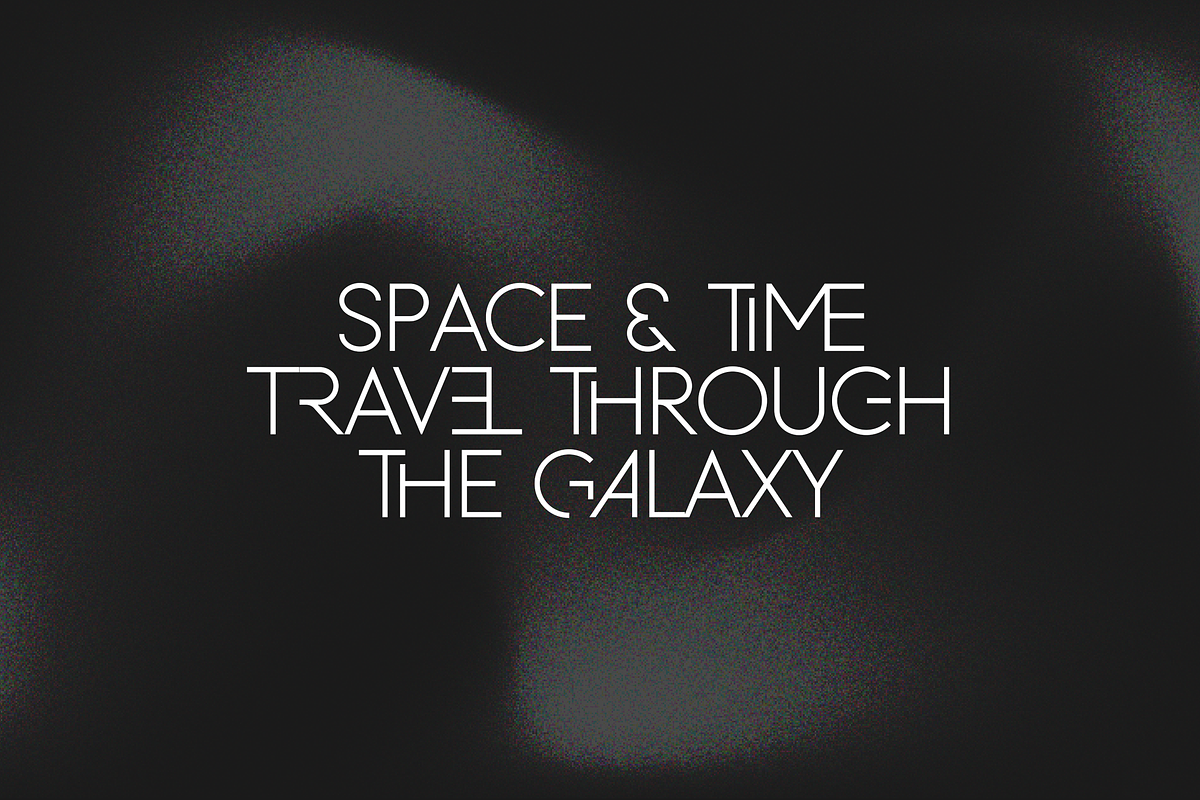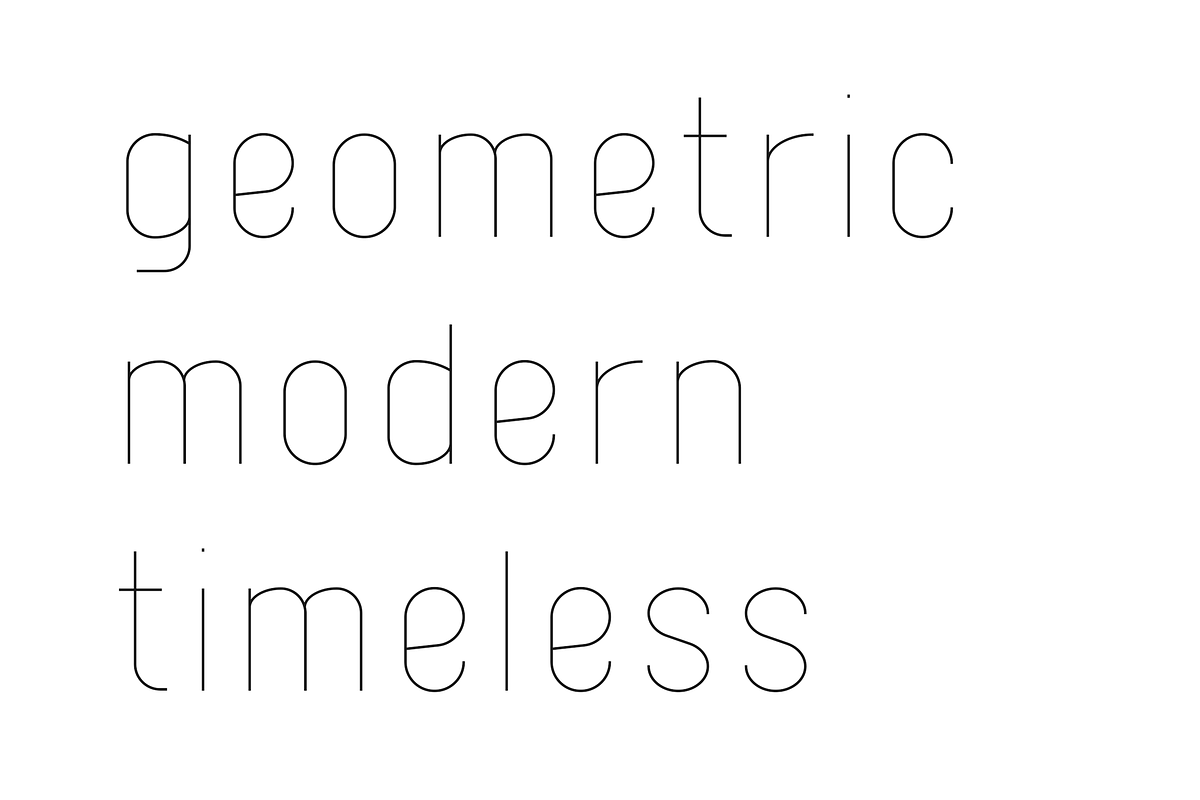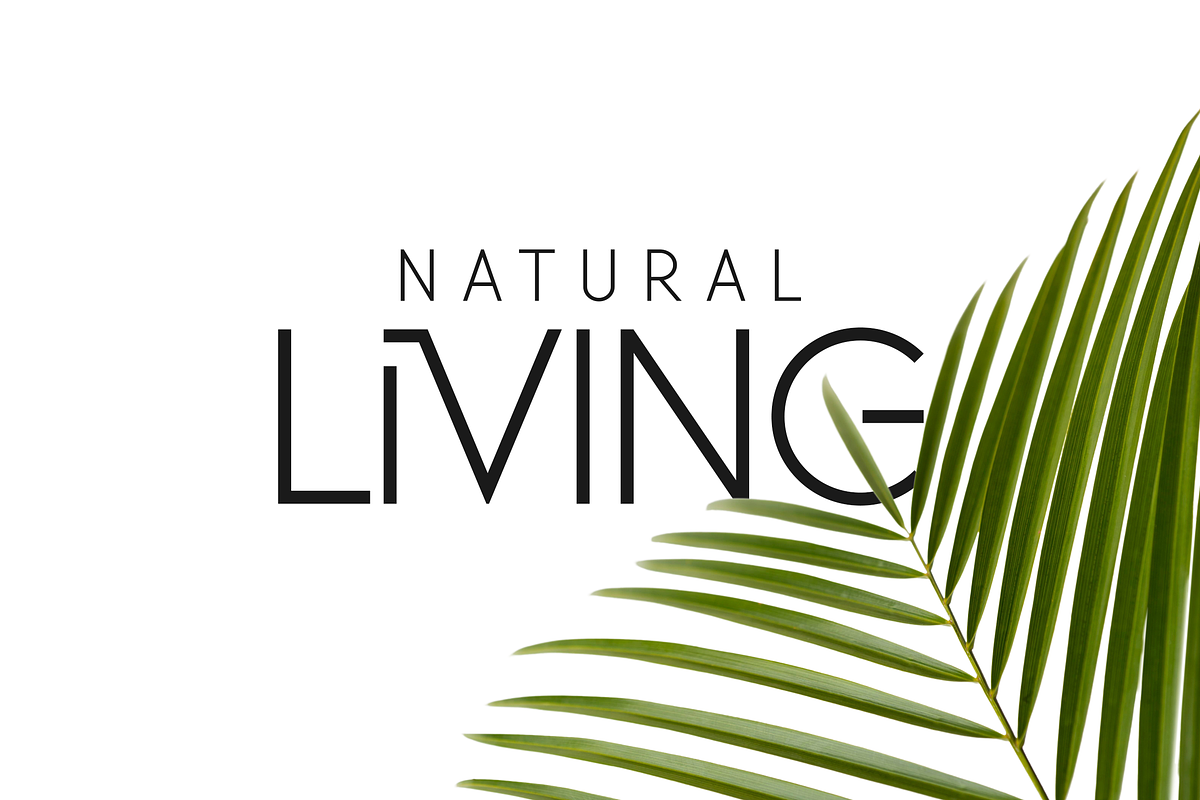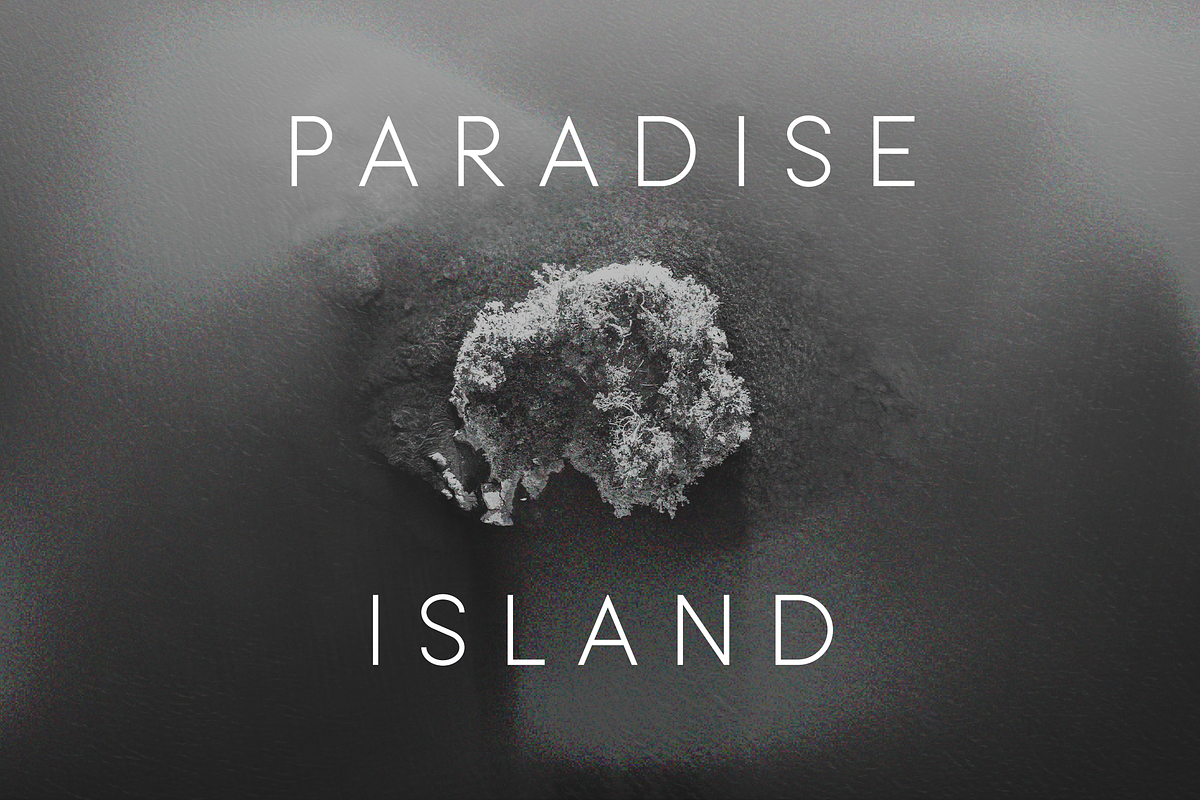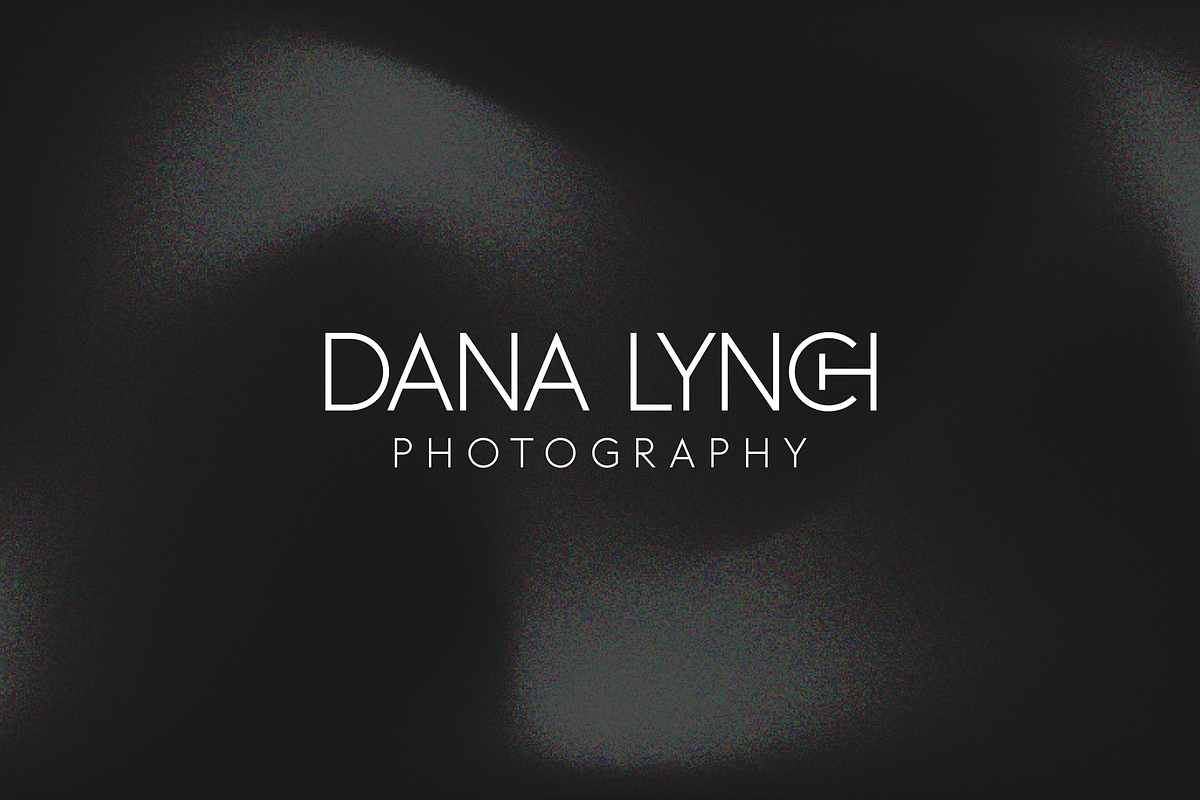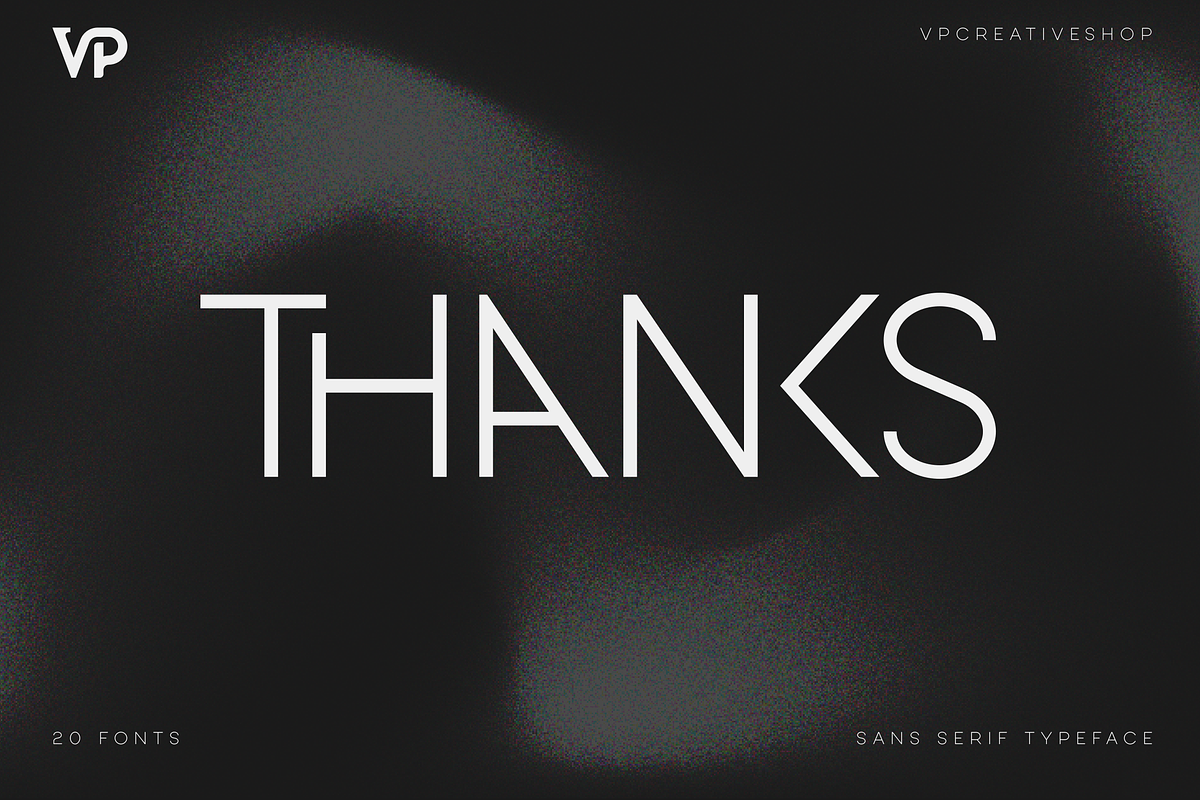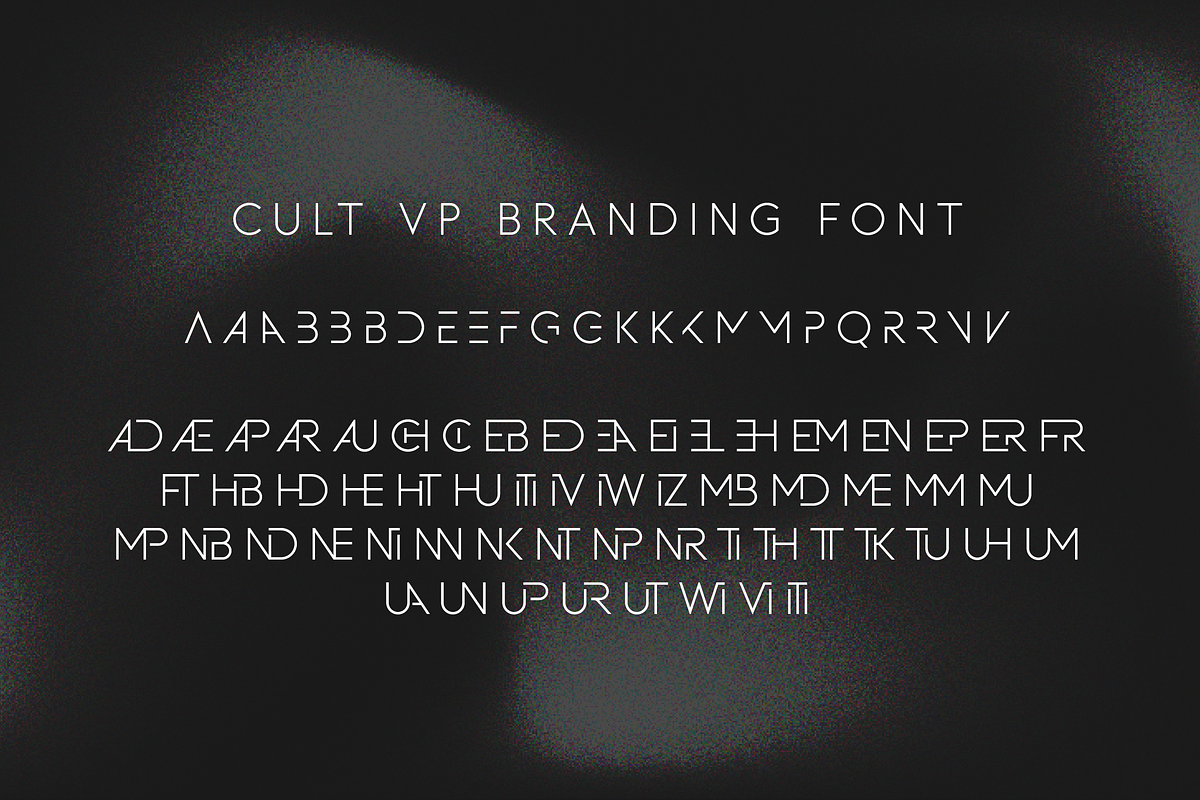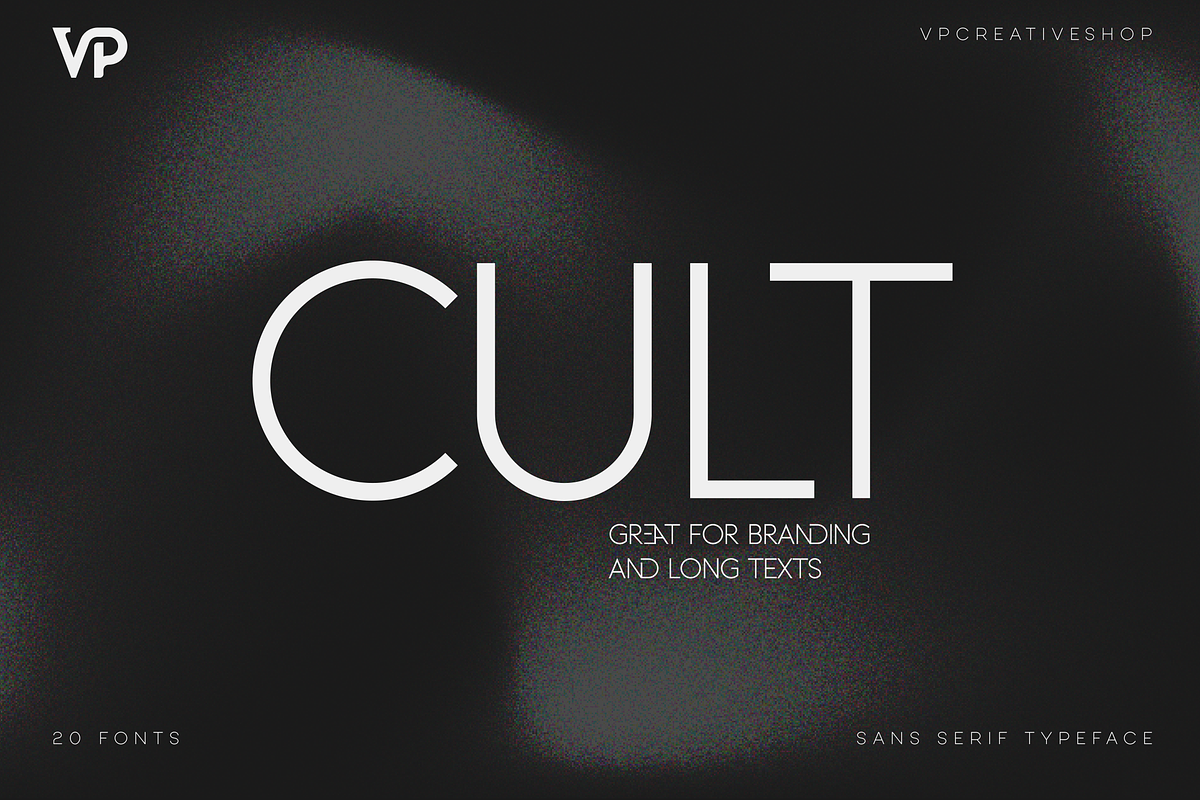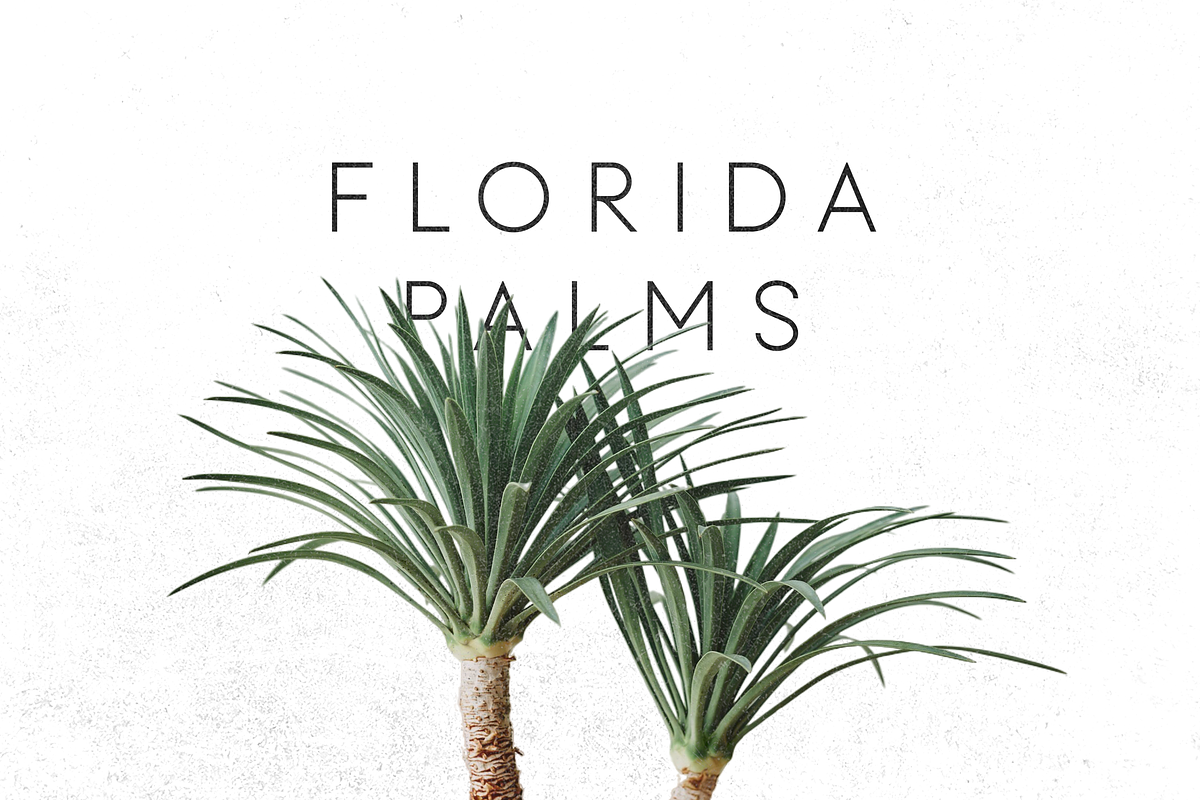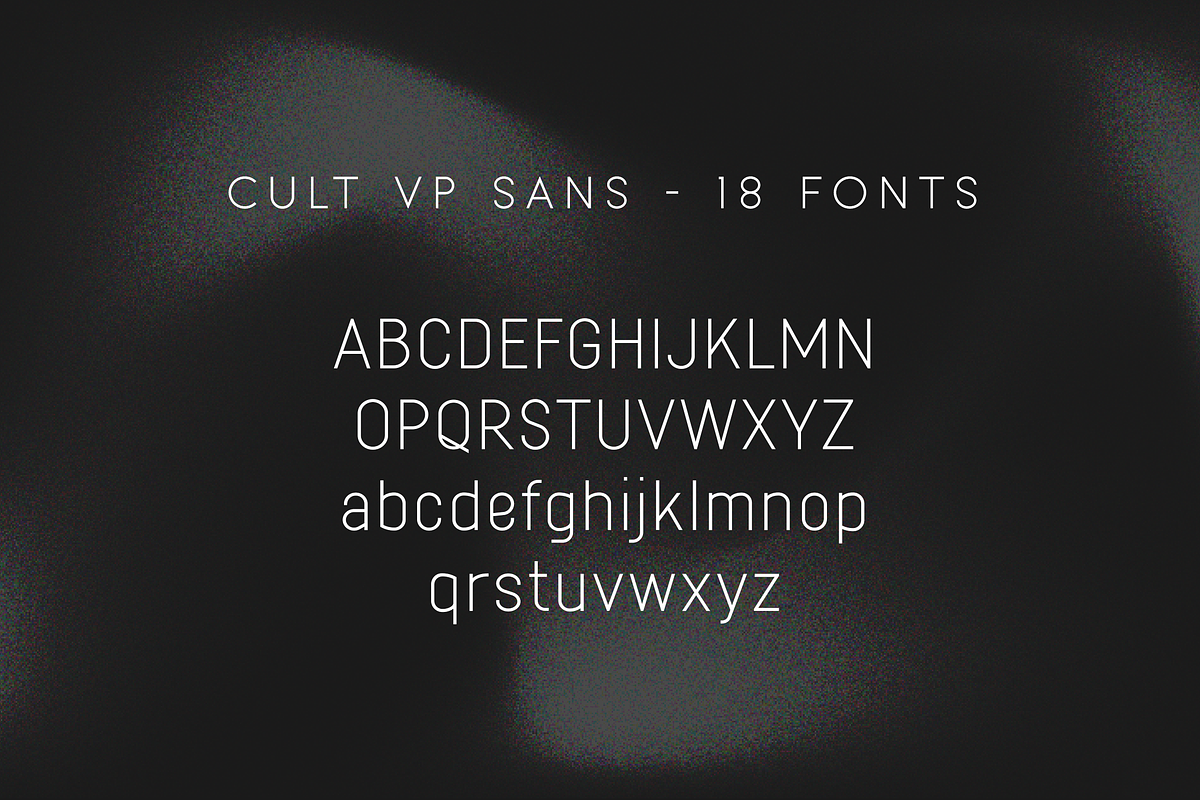
Cult VP Typeface - 20 fonts
Introducing Cult VP typeface - 20 fonts
Unlock the creative potential with Cult VP typeface - a modern and timeless font loaded with 20 styles that will surely elevate your writing. Enhance your visuals further by utilizing 87 languages support and ligature glyphs for an inspirational typography experience like no other!
- Uppercase, lowercase, numeral, punctuation & Symbol
- ligature glyphs
- Branding font - regular and italic
- 9 sans serif weights - regular and italics